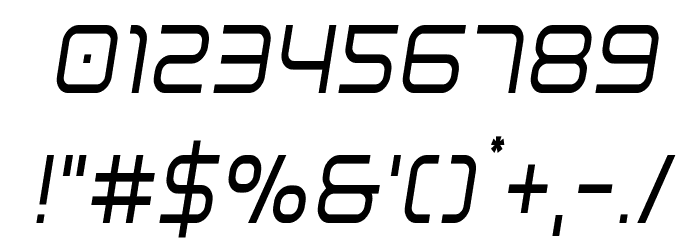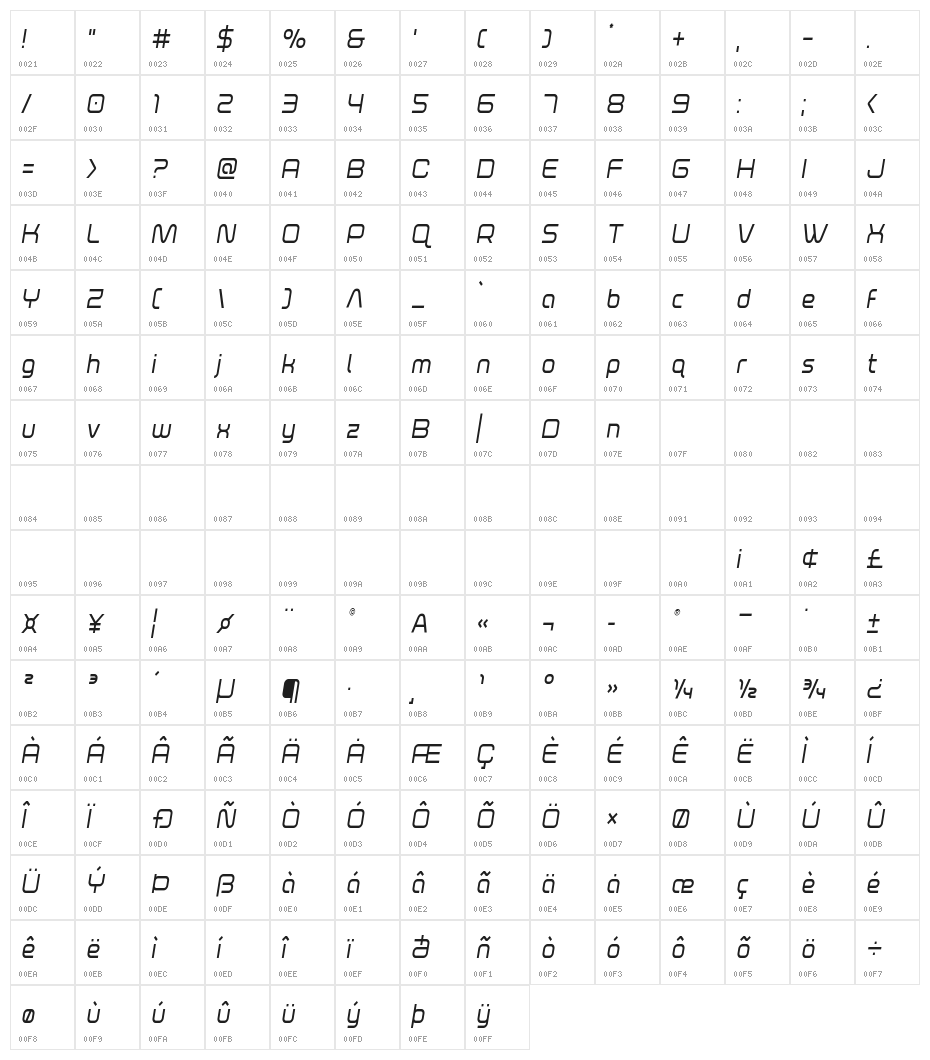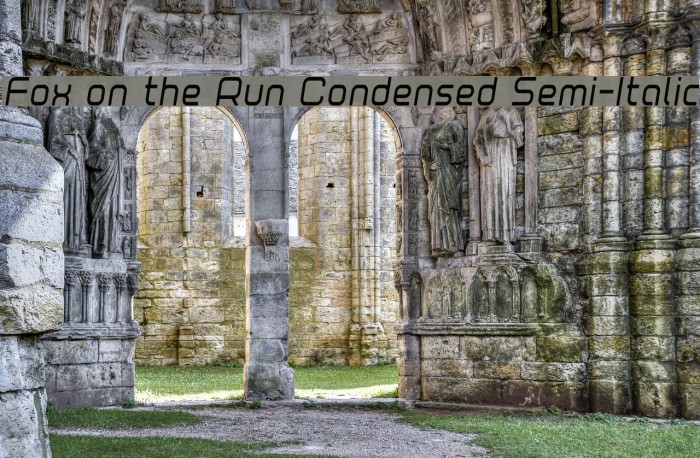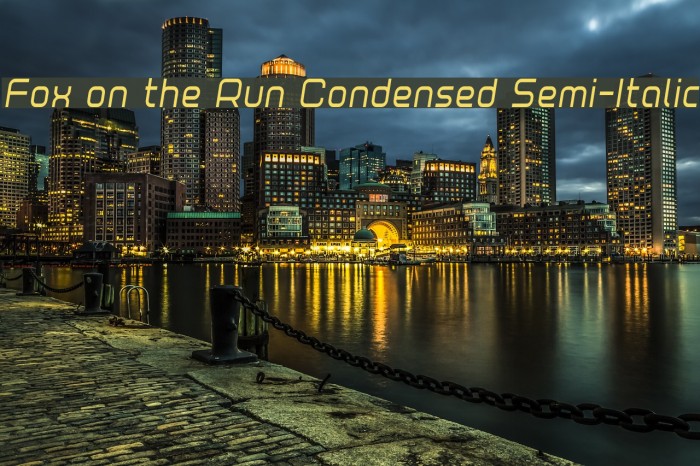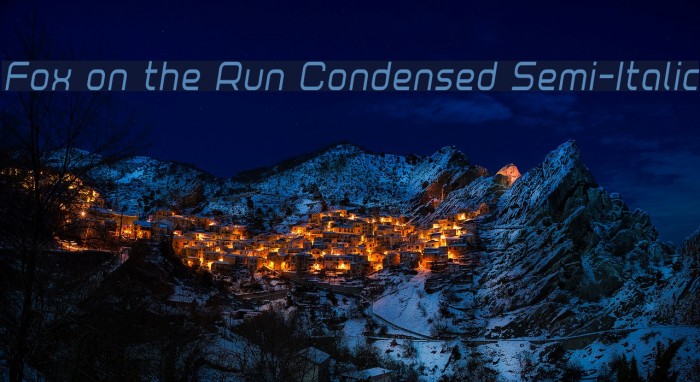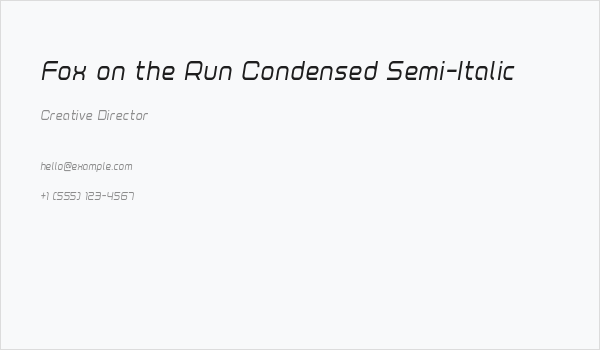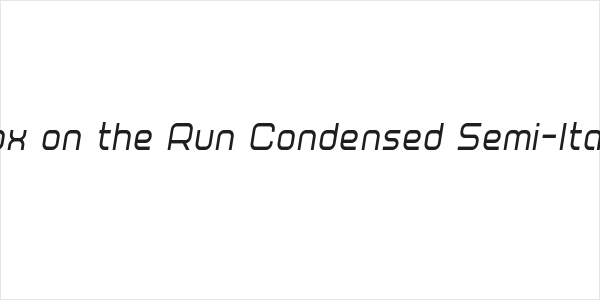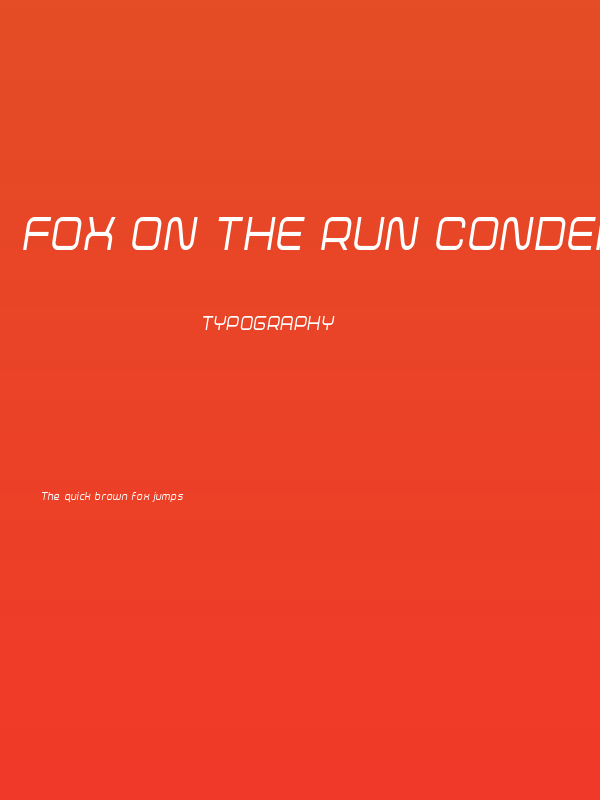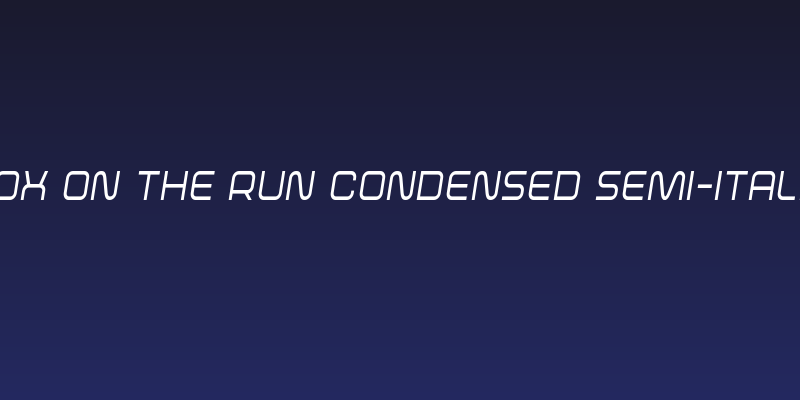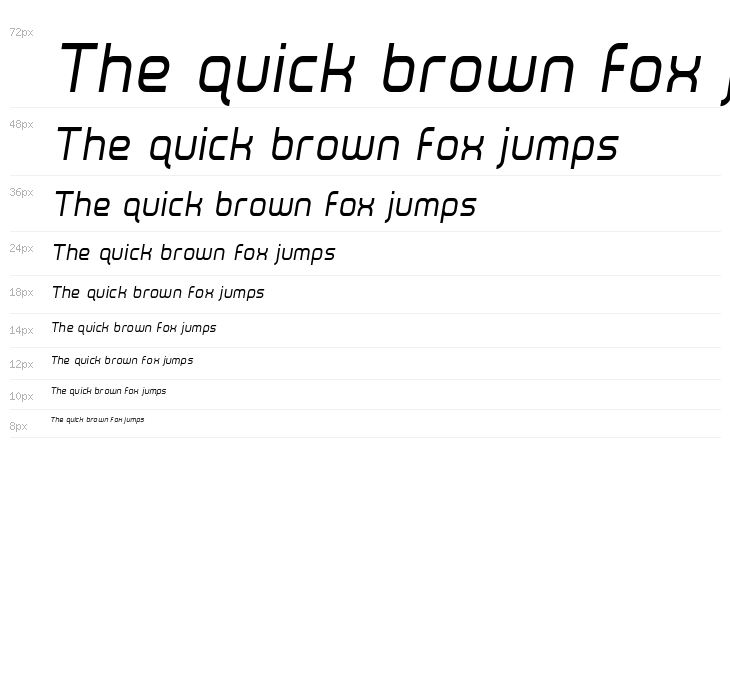
Fox on the Run Condensed Semi-Italic Font
Fox on the Run Condensed Semi-Italic Description
This font features a sleek, modern design with a condensed and semi-italic style. The characters are slightly slanted, giving a dynamic and forward-moving appearance. The strokes are consistent in width, providing a uniform look across all characters. The font maintains a clean and professional aesthetic, making it suitable for a variety of applications. The uppercase and lowercase letters are well-balanced, and the numerals are clear and easy to read. Special characters are included, enhancing its versatility. Overall, this font combines elegance with a contemporary edge.
| Proposed Projects | Ideal for branding, advertising, and editorial design projects where a modern and dynamic look is desired. |